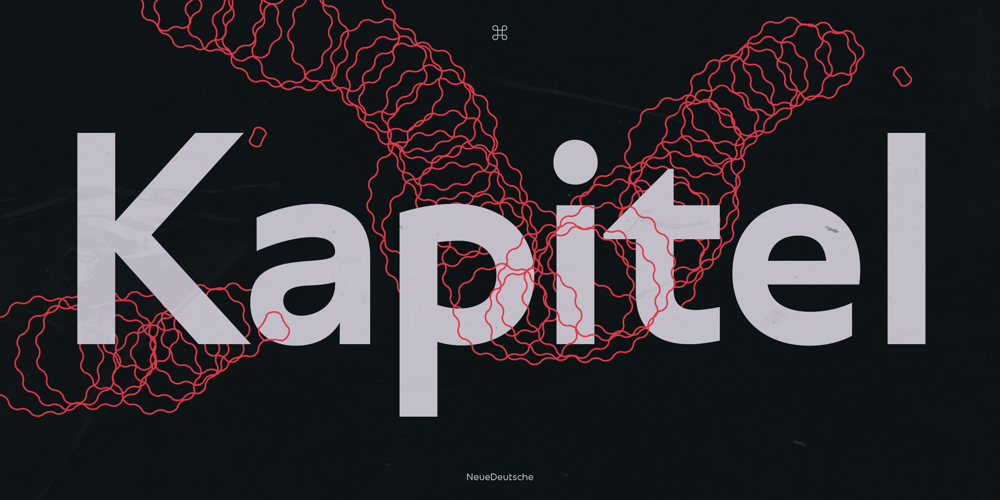
ND Kapitel
ND Kapitel font
ND Kapitel Font Family was designed by Wolf Boese and published by NeueDeutsche. ND Kapitel contains 9 styles and family package options. Experience the evolution of the humanist sans-serif style with this contemporary and classic font. Designed with a modern sensibility and clean, spurless letterforms, this font offers a fresh take on a time-honored tradition. Its refined curves and harmonious proportions create a sophisticated look that is perfect for branding, editorial design, and other professional projects.